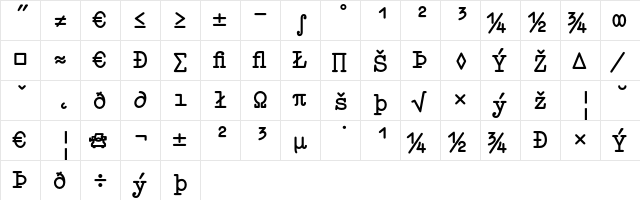
Elementa Expert Bold
Design Context for Elementa Expert Typeface
Elementa Expert is a composed and adaptable typeface that performs quietly and consistently across a wide range of design contexts. The heavy weight commands attention and anchors typographic hierarchies.